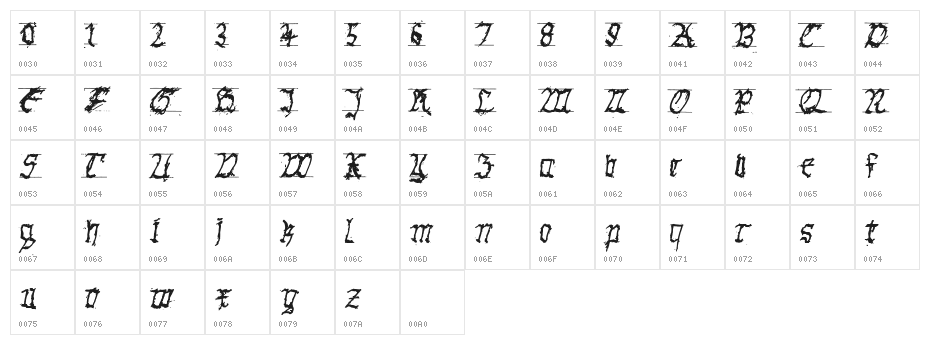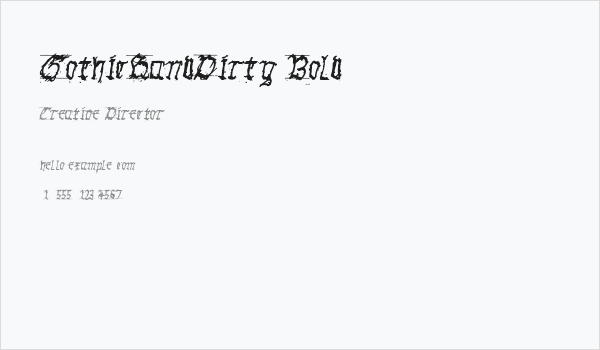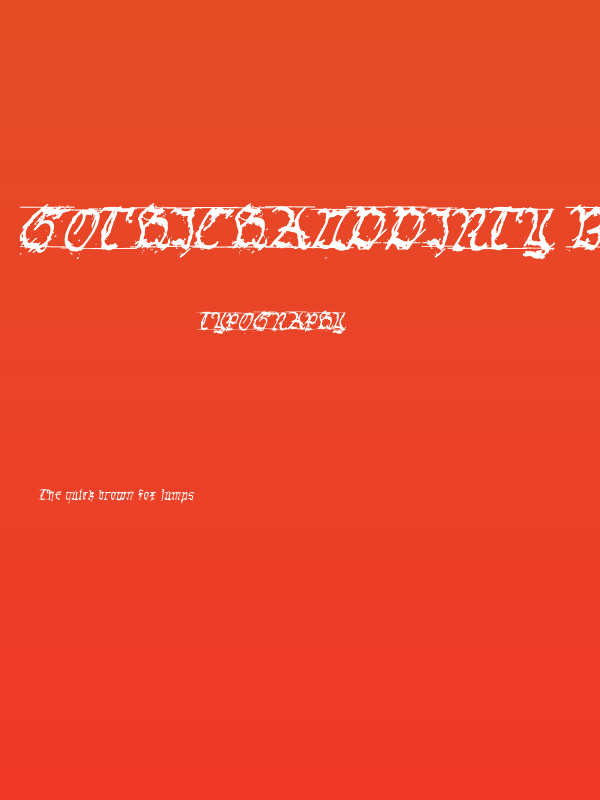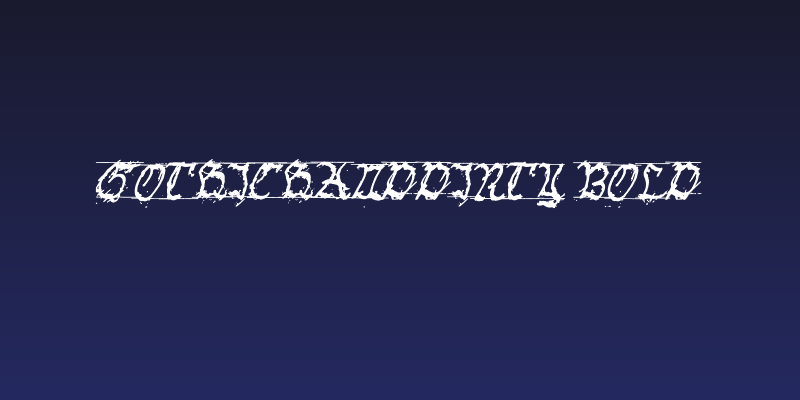
GothicHandDirty Bold Font
GothicHandDirty Bold Description
This font features a bold and rugged Gothic style with a distressed, hand-drawn appearance. The characters are intricately detailed, giving a sense of age and texture, reminiscent of medieval manuscripts. The uppercase letters are tall and imposing, while the lowercase letters maintain a consistent style with sharp angles and pointed edges. Numbers and special characters follow the same aesthetic, ensuring uniformity across all glyphs. The overall look is both dramatic and artistic, making it suitable for projects that require a historical or edgy feel.
| Use Case | Headlines, Logos, Decorative text |
| Proposed Projects | Ideal for use in horror-themed designs, historical recreations, album covers, or any project needing a dramatic, aged look. |